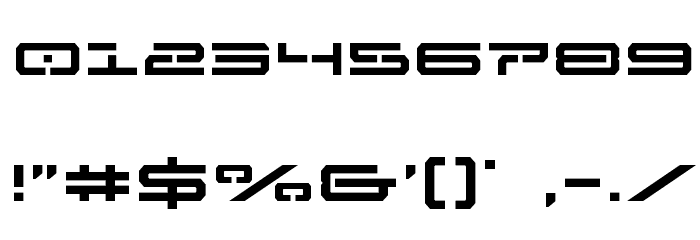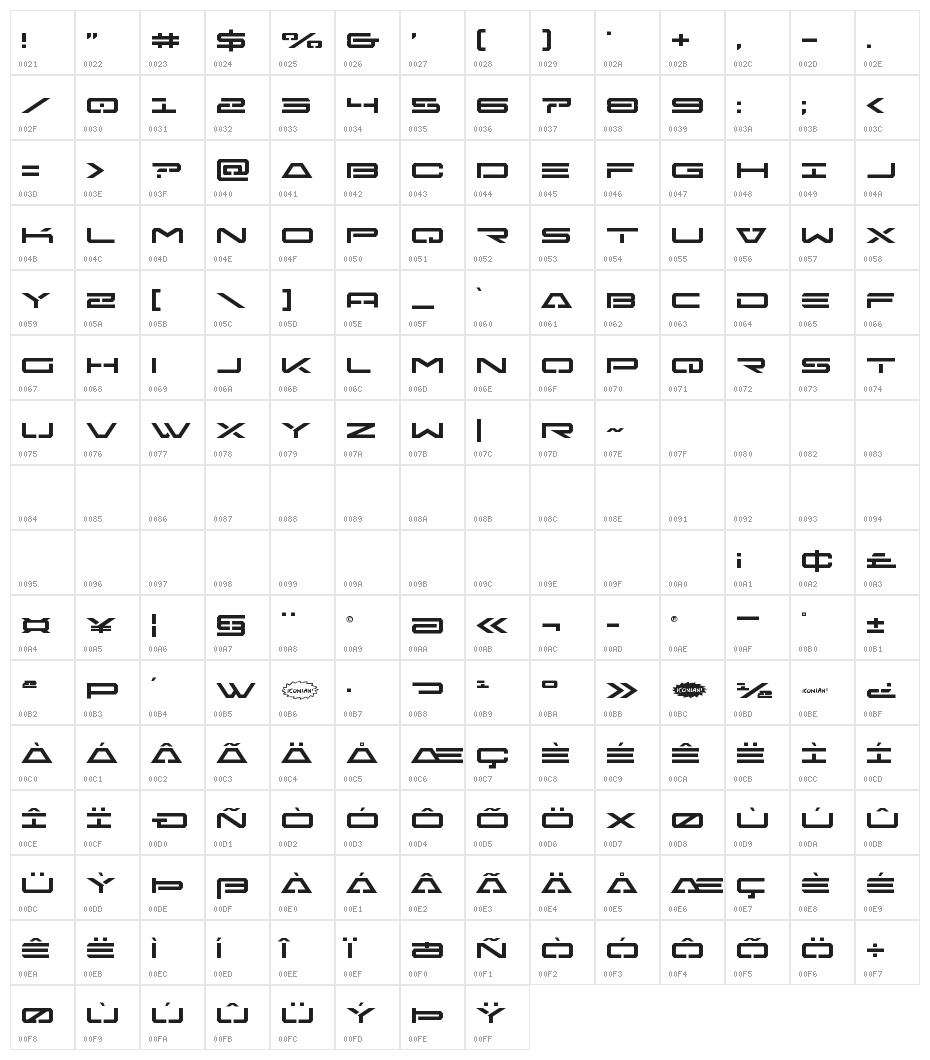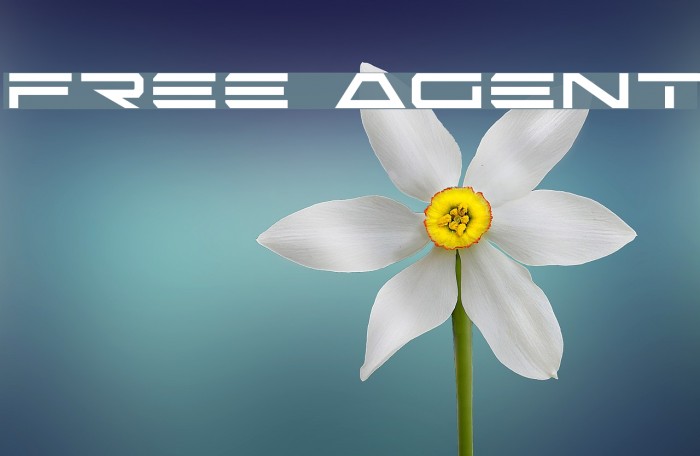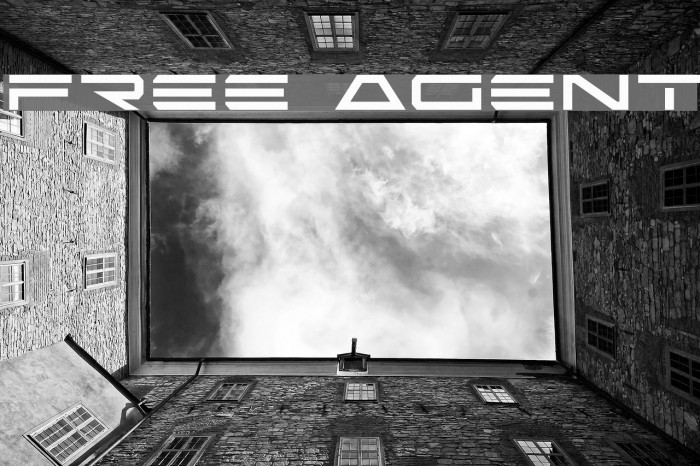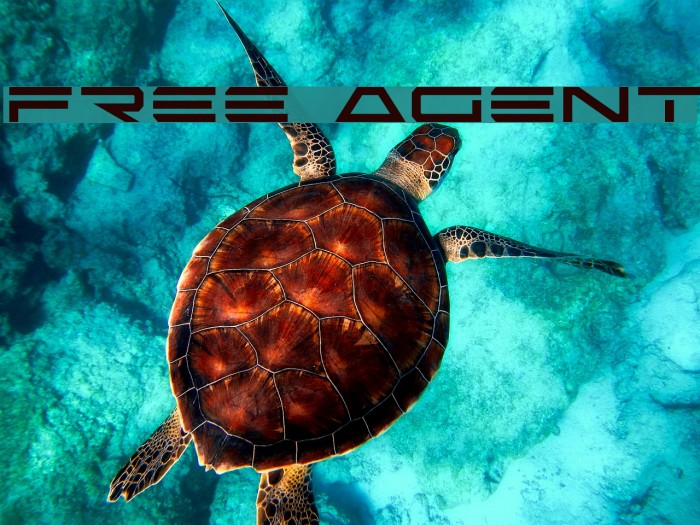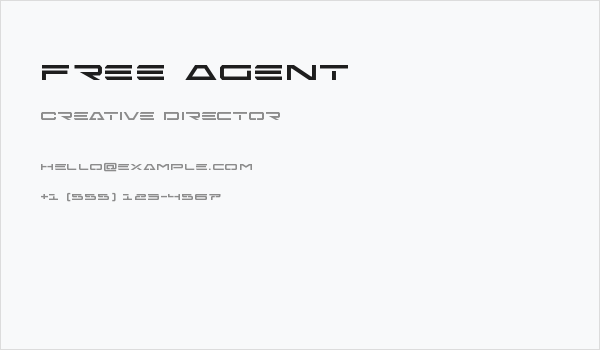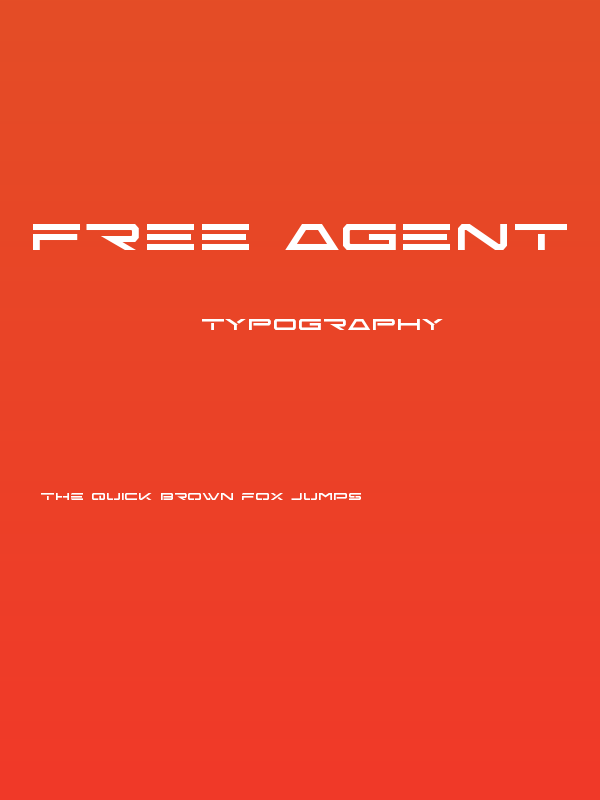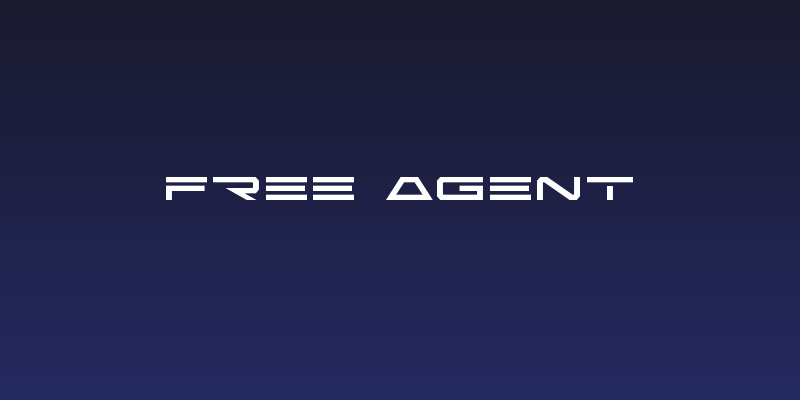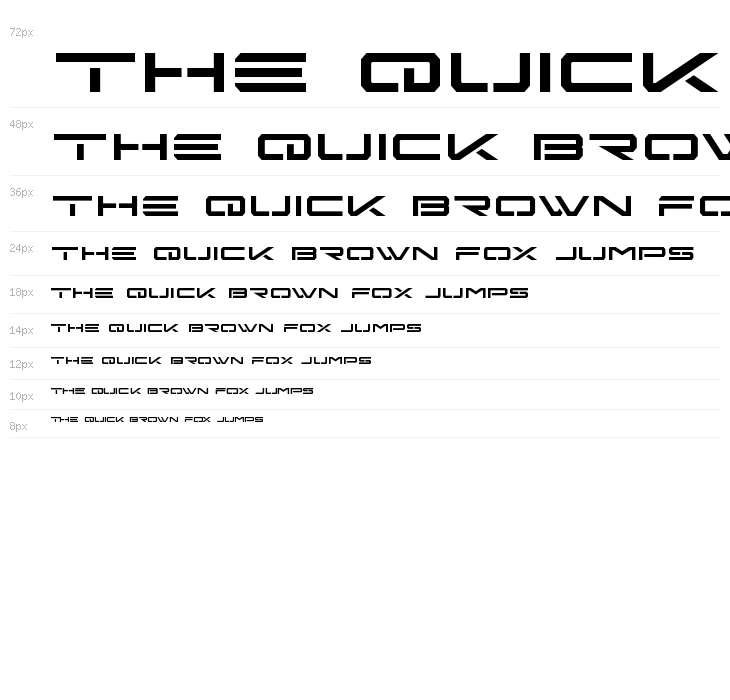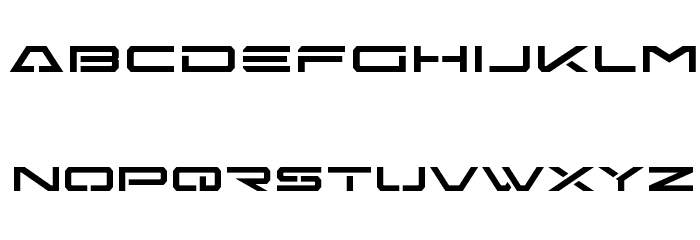
Free Agent Font
Free Agent Description
This font features a futuristic and geometric design, characterized by sharp angles and a bold presence. The uppercase letters are distinct with their angular cuts and unique shapes, giving a sense of modernity and innovation. The lowercase letters maintain the same angular style, ensuring consistency throughout the typeface. Numbers are designed with a similar aesthetic, making them easily recognizable and visually appealing. Special characters are crafted to match the overall theme, providing a cohesive look. The font's style is ideal for projects that require a modern and edgy appearance, such as technology-related branding or sci-fi themed designs.